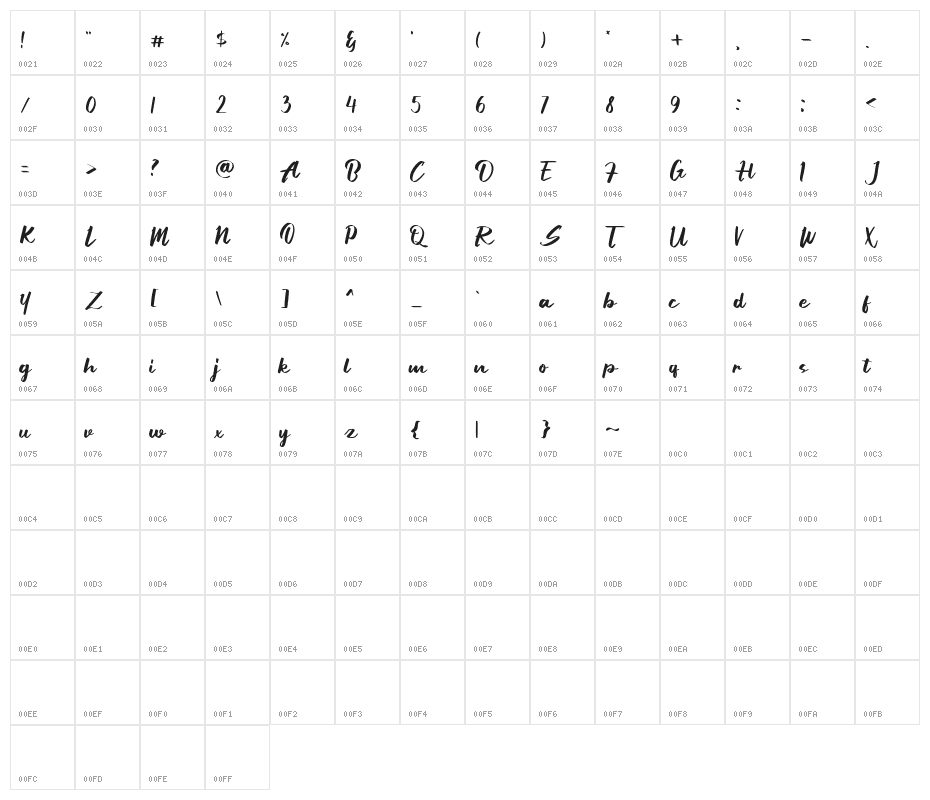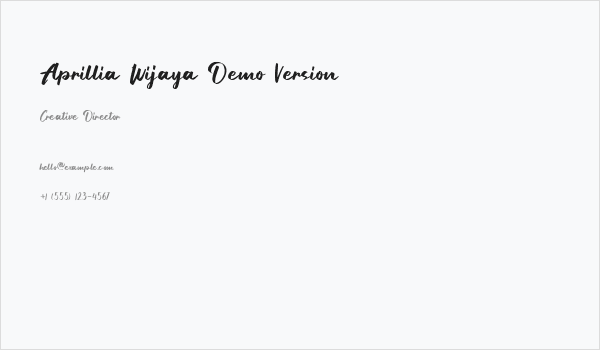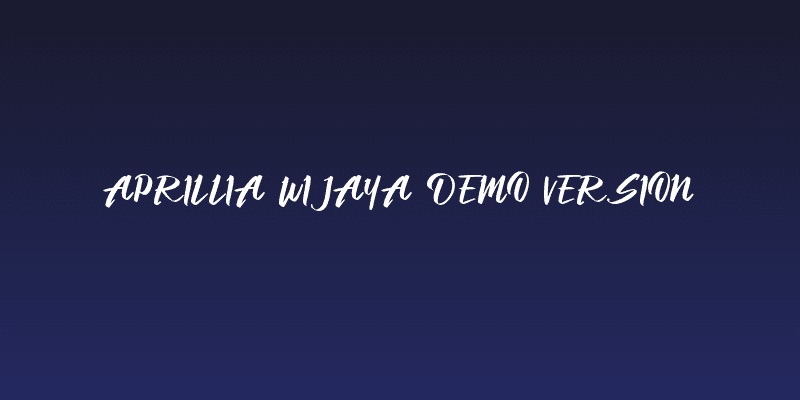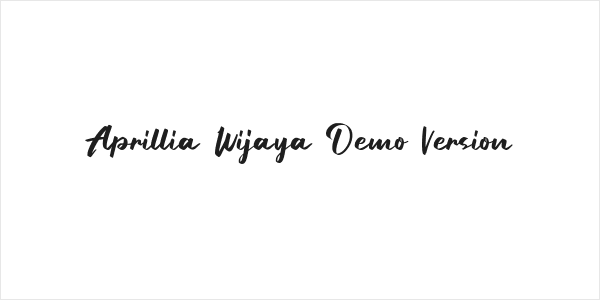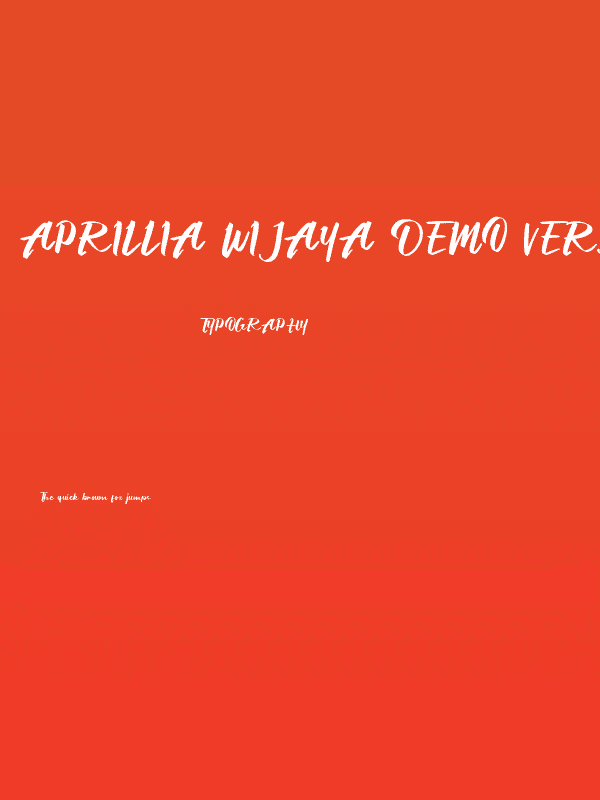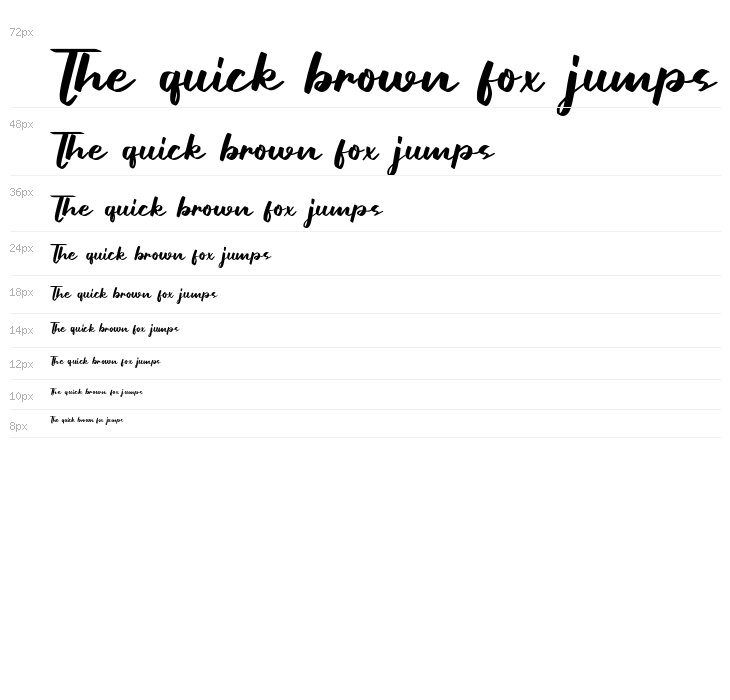
Aprillia Wijaya Demo Version Font
Aprillia Wijaya Demo Version Description
This font exhibits a bold and flowing script style, characterized by its elegant and dynamic strokes. The uppercase letters are particularly striking, with a sense of movement and flair that suggests a handwritten quality. The lowercase letters maintain this fluidity, offering a harmonious balance between readability and artistic expression. Numbers and special characters are crafted with the same attention to detail, ensuring consistency across all elements. The overall appearance is both modern and classic, making it versatile for various design needs.
| Proposed Projects | Ideal for wedding invitations, branding projects, and elegant logo designs. |